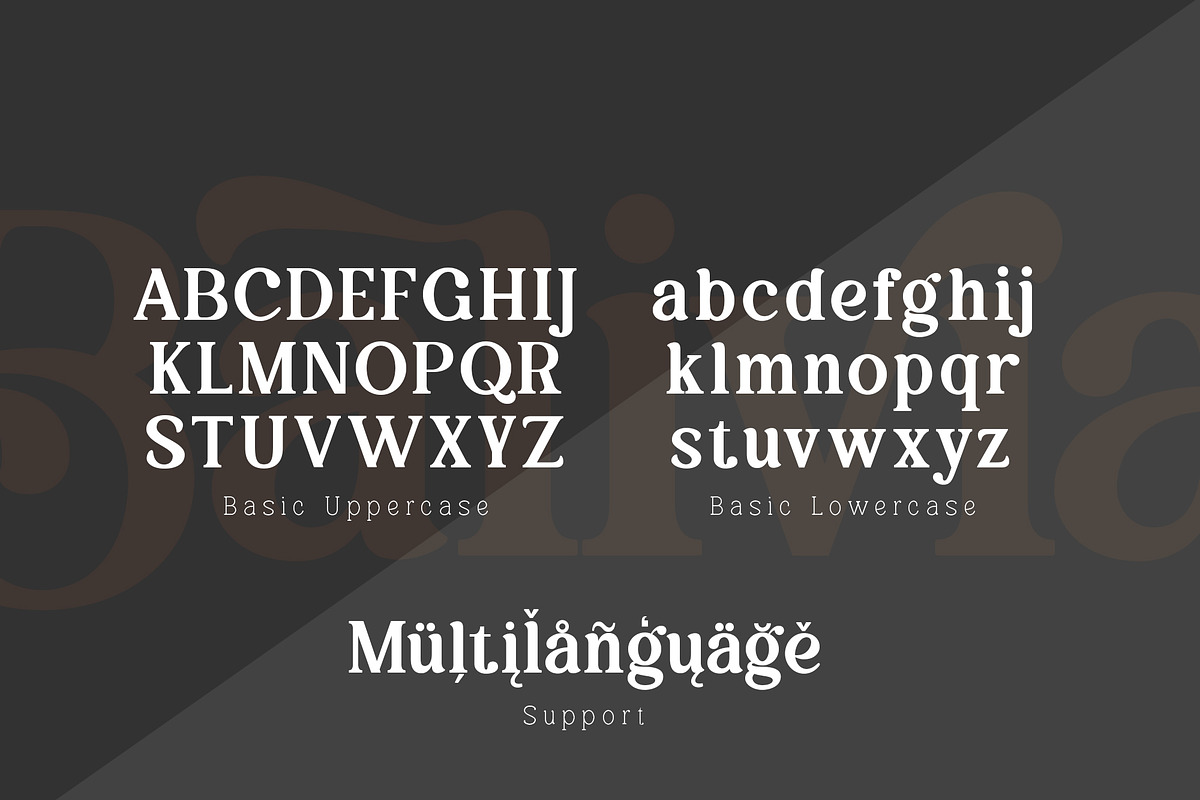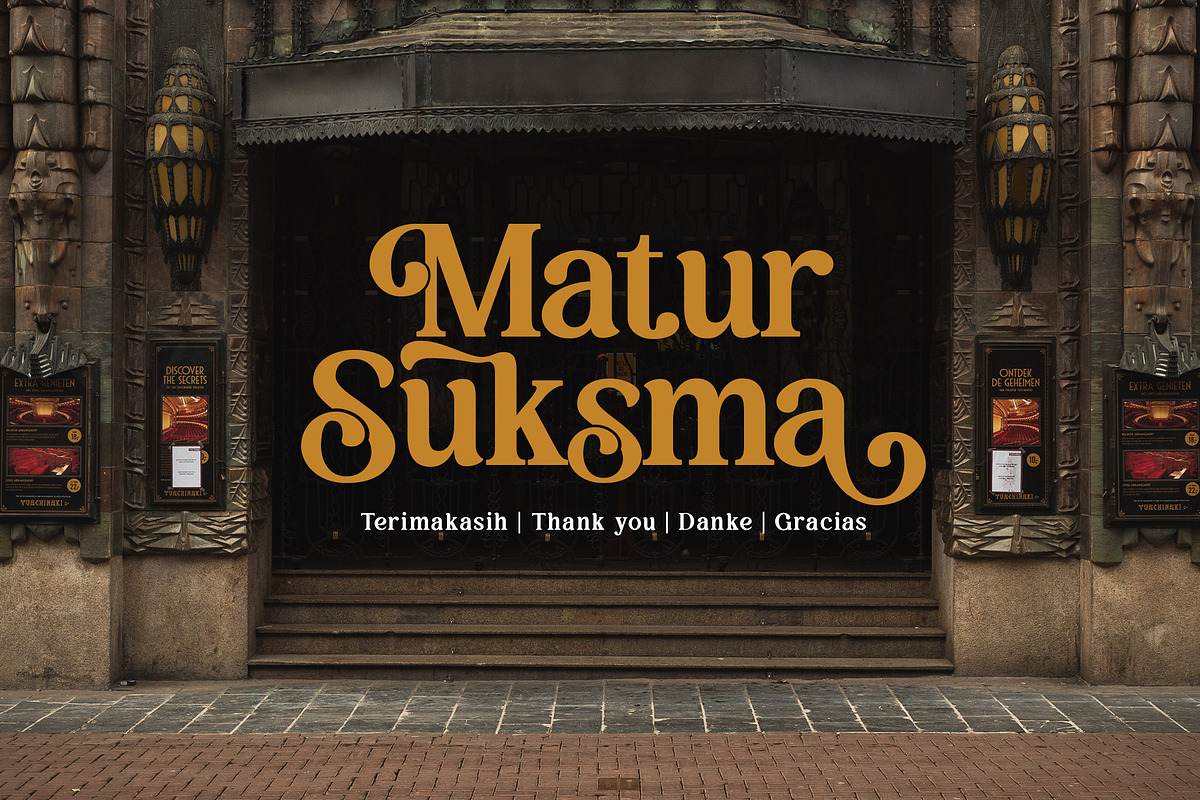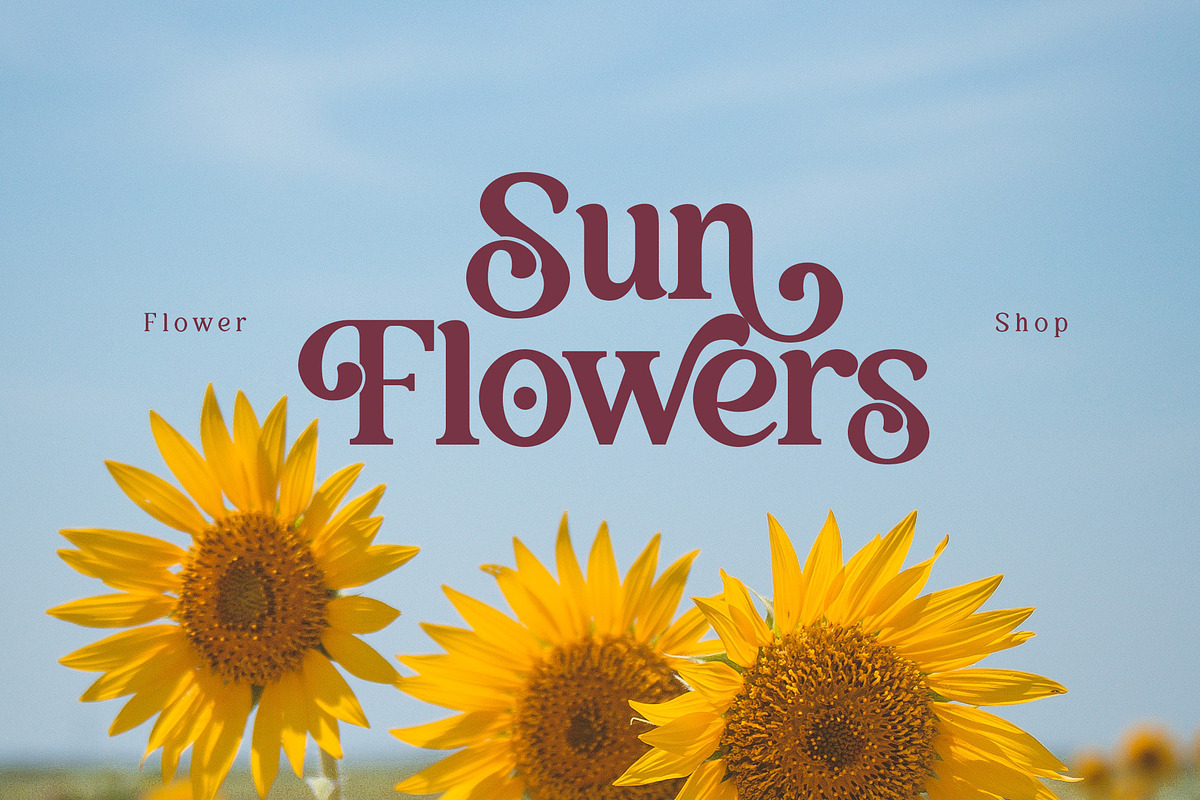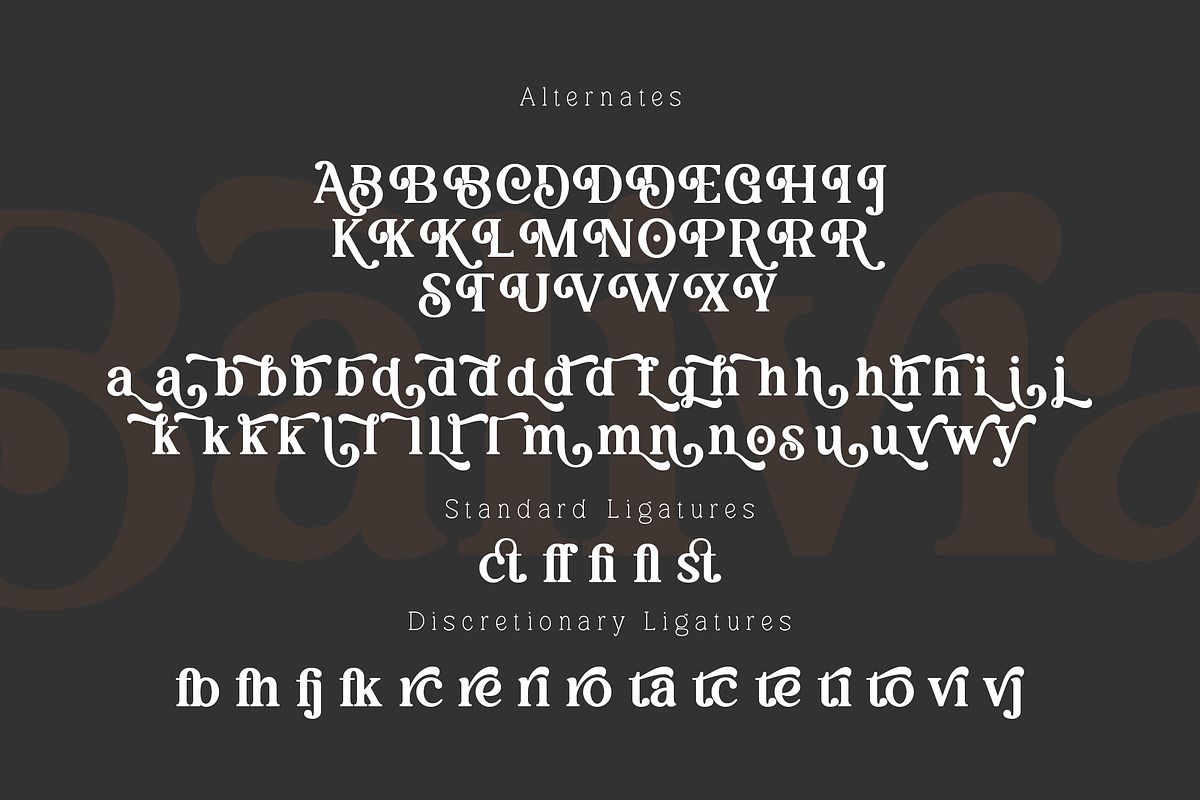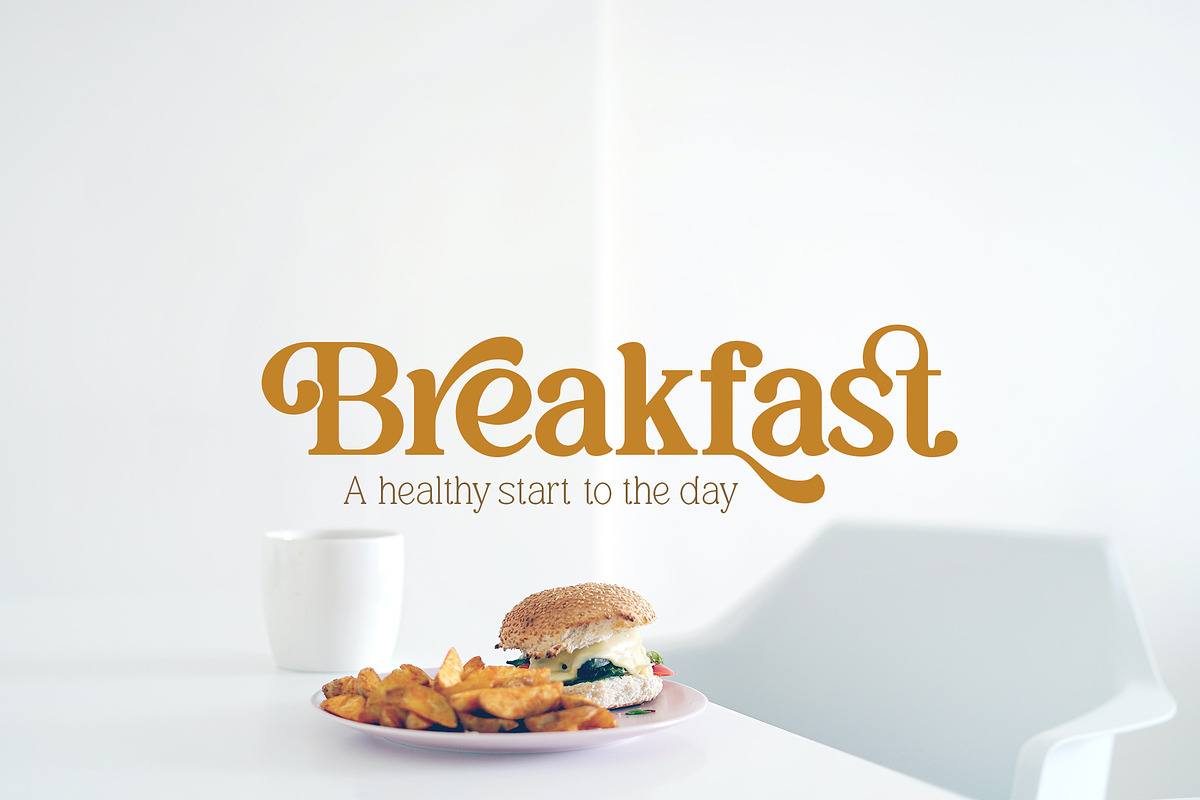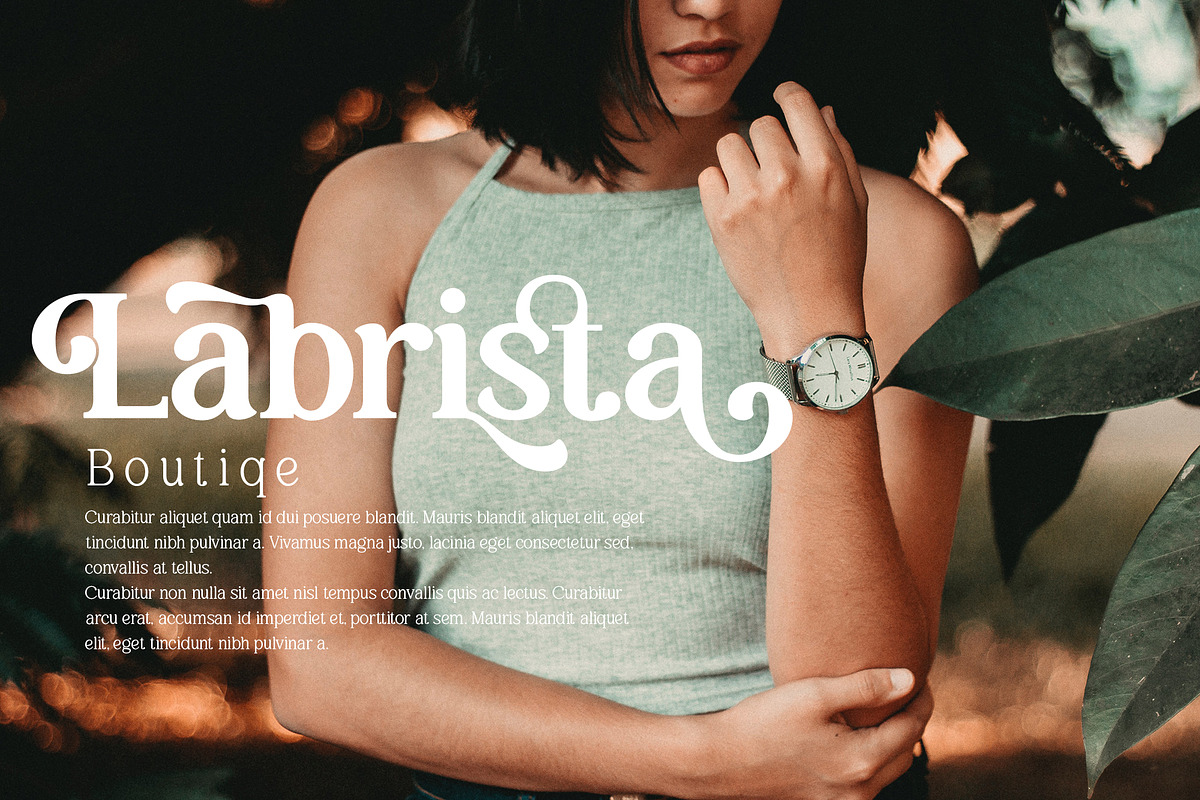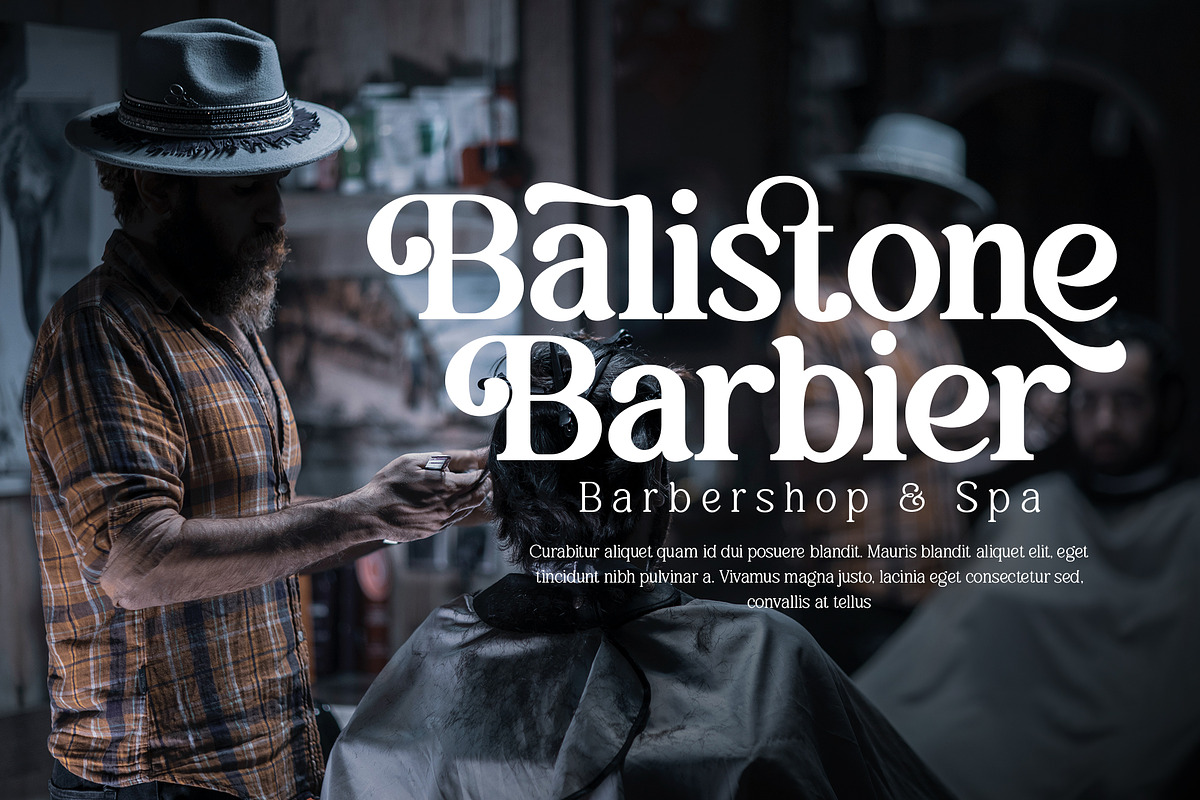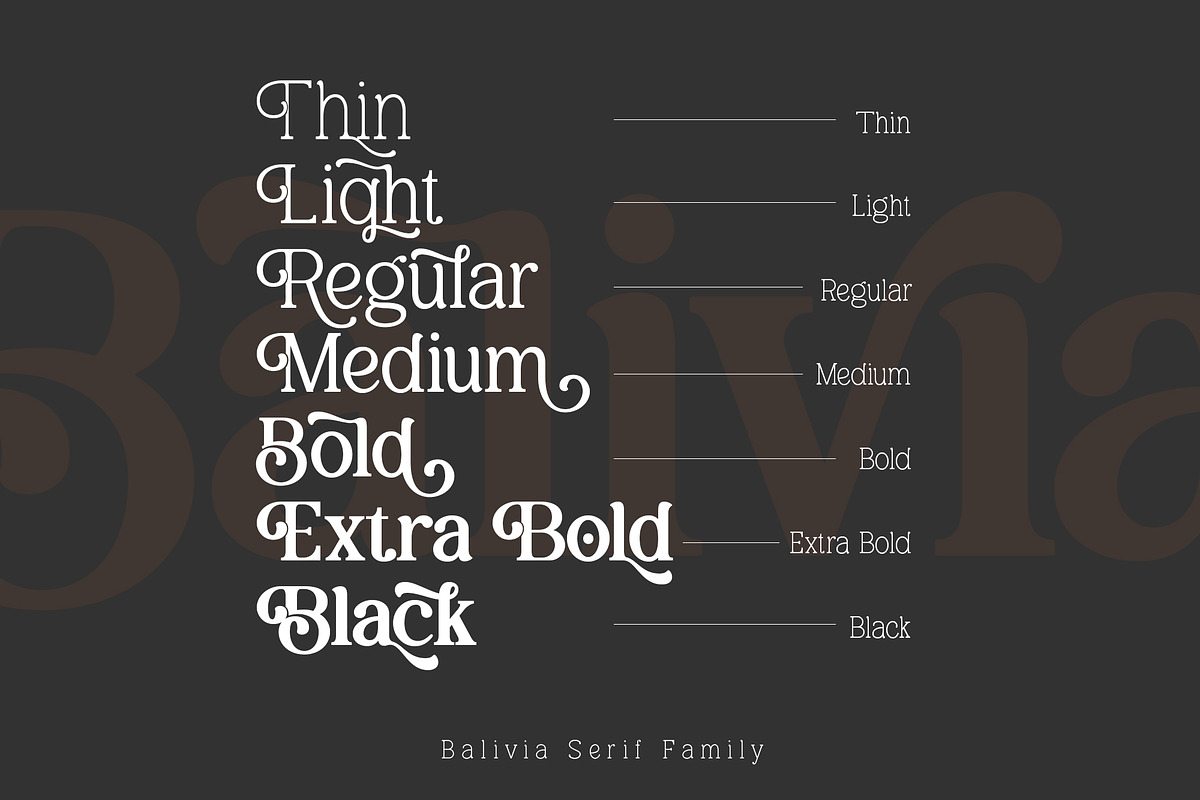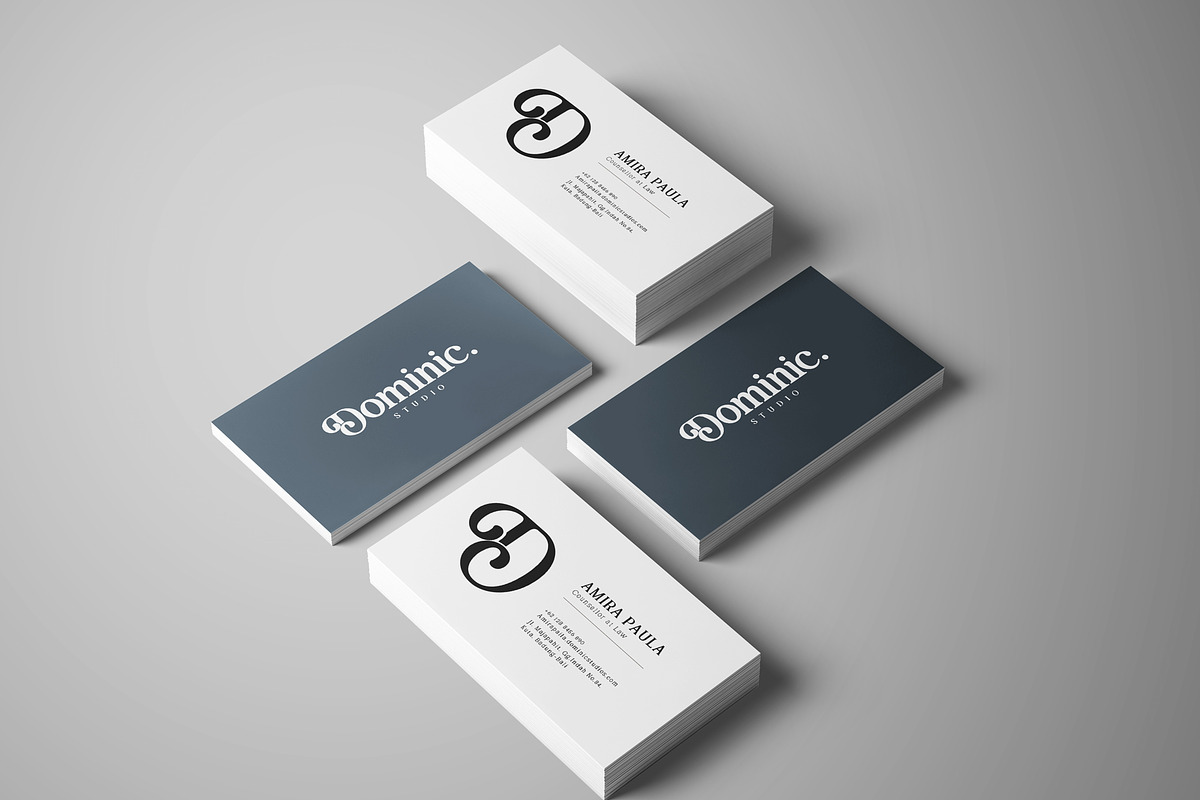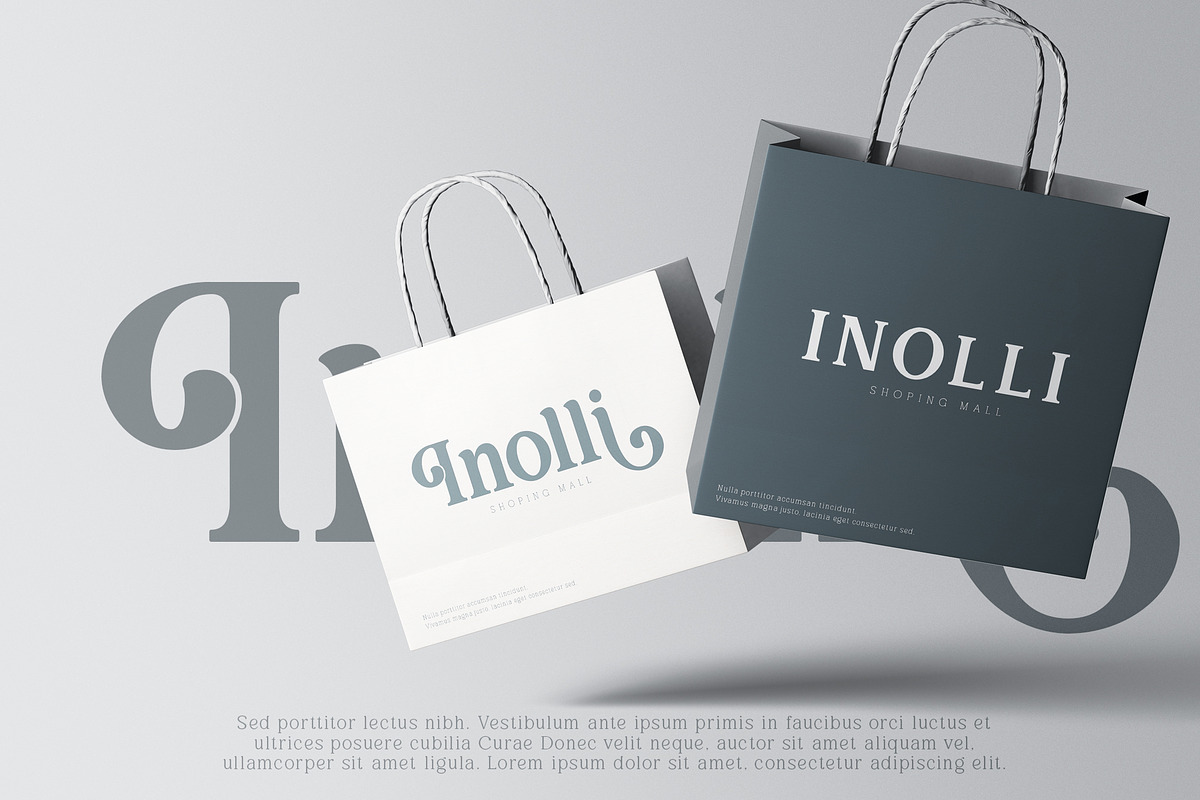
Balivia - Bold Serif Family
Introducing our bold serif font that was made to provide more choices for your designs. This is Balivia Serif Bold Family, it comes with many choices from thin to bold, give you lot of choice for using it. Each of these styles, has a different taste and suitable for use in various design needs and really gives a special touch, elegant and modern impression.
Balivia is pretty good for use in any elegant or glam look design such as wedding invitations, branding, fashion, book titles, business cards, posters, and many more that fit to combined with Balivia Bold Serif Family.
Balivia type is also equipped with many languages, so it is easy to use for any country and language usage, and also equipped with alternative stylistic to make your design more attractive, and the ligatures also discretionary ligatures to be used as decorative fonts